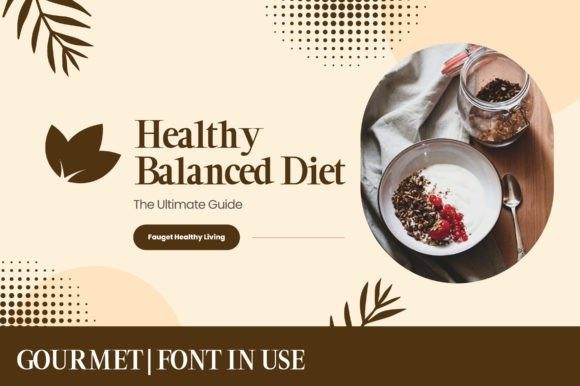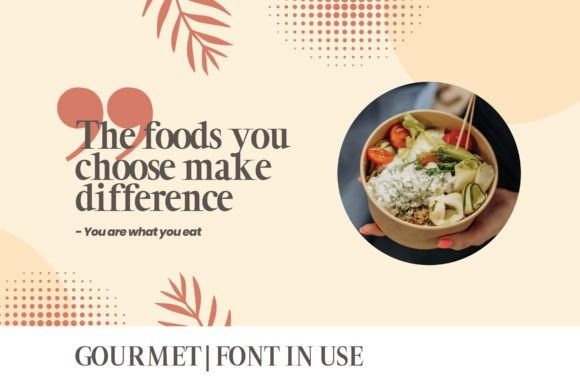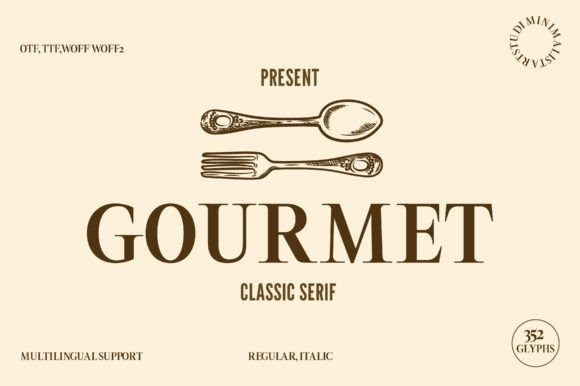
Gourmet Font
Gourmet Font is a classic, delicate, and elegant serif typeface. Its simple aspect and perfectly curved construction render it a valid choice when you are designing elegant, luxurious themes such as packaging design, restaurant menus, invitations, banners social posts, etc. Use it in your creative ideas and notice how much power it holds inside.